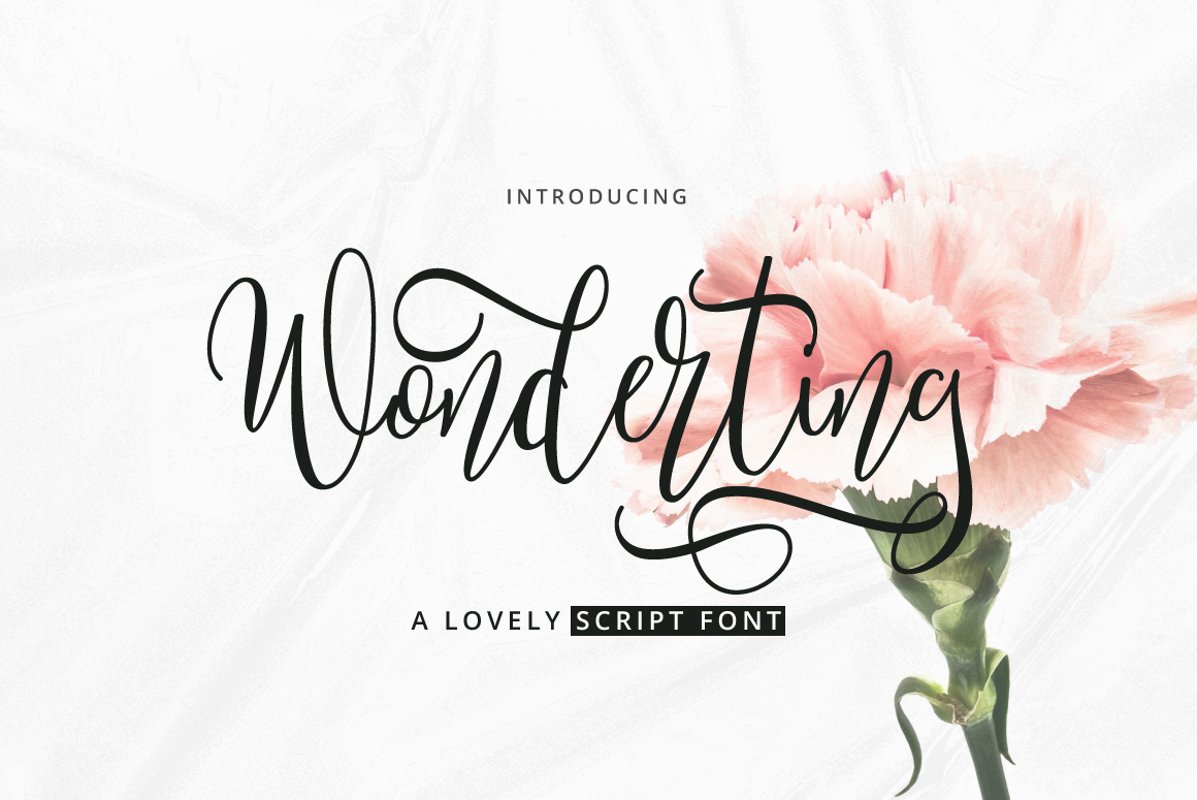
Wonderting Script
Introduce my new font Wonderting Script is a unique blend of classic and modern font. imperfect style ups and downs, like a dance letters, smooth, clean and simple. Perfect for wedding, event, invitation, escort card, table number, header menus, display, logos, slider blog, custom address, stamps, packaging, greeting card, etc.
Wonderting Script including alternate glyph and beautiful swirl in a font including stylistic sets, Ligatures etc. The Open Type features can be accessed by using Open Type savvy programs such as Adobe Illustrator CS, Adobe Indesign & CorelDraw X6-X7 and Microsoft Word. And this Font has given PUA unicode (specially coded fonts). so that all the alternate characters can easily be accessed in full by a craftsman or designer.